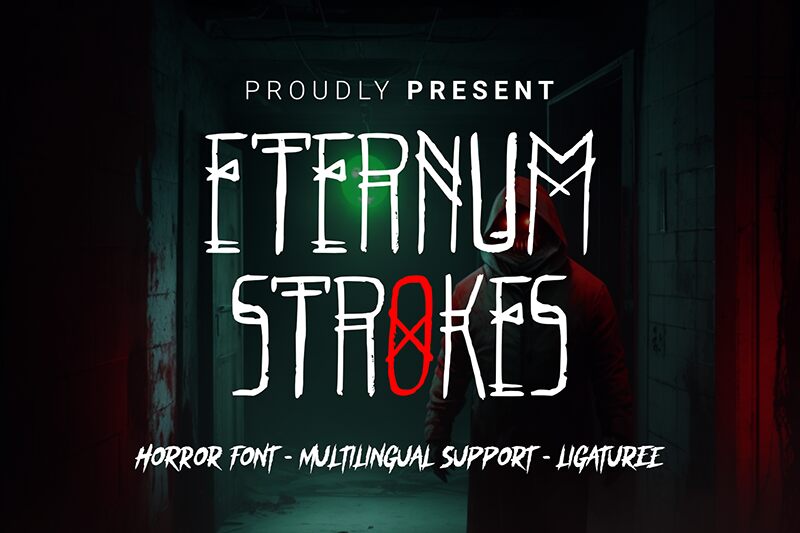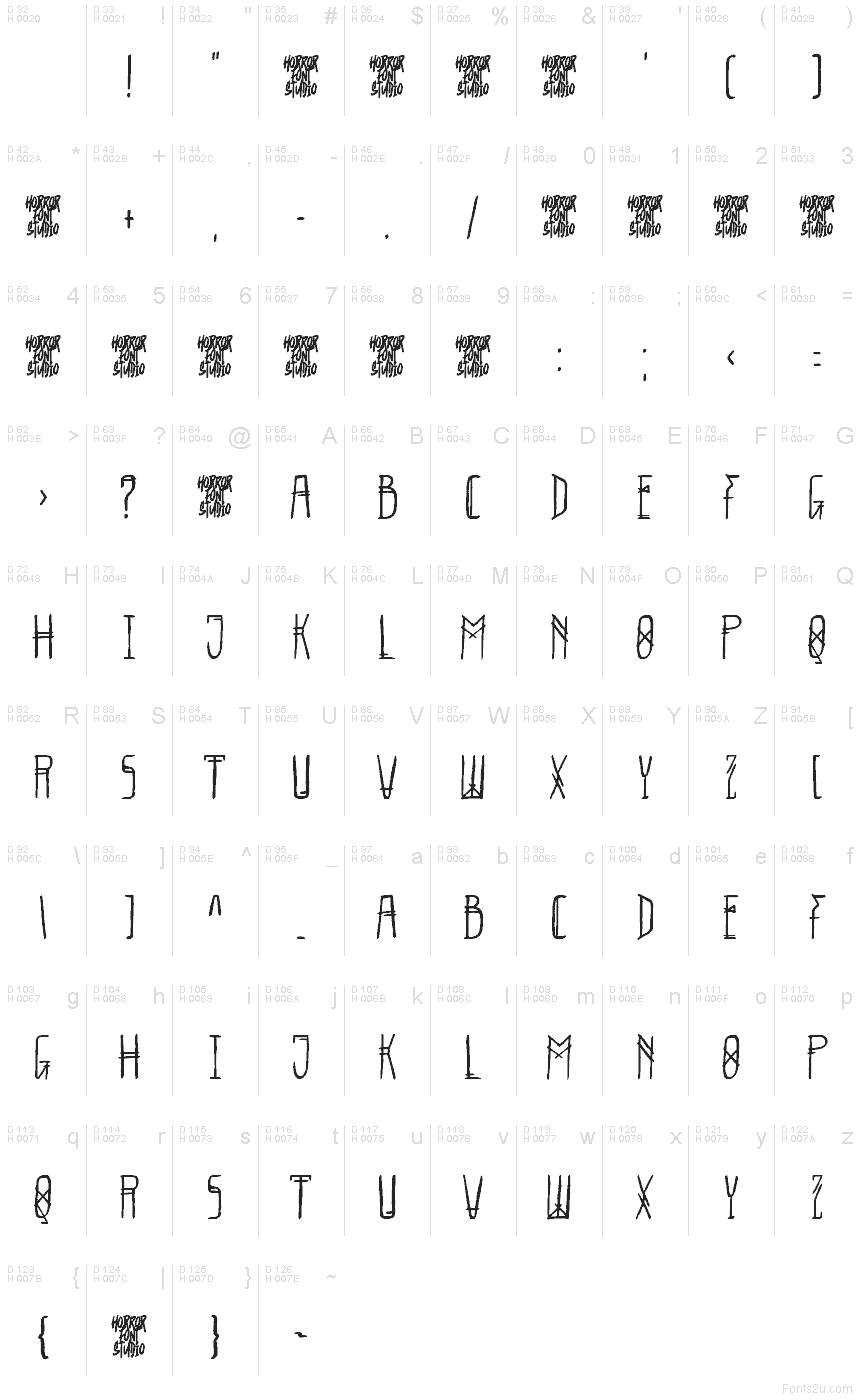
Eternum Strokes
Eternum Strokes font by Horror Font is a free scary display font built around spindly, rune-like letterforms. Bone-thin verticals end in sharp nicks and tied crossbars, as if scratched into wood with a ritual blade. The texture feels wiry and unstable, yet the tall rhythm keeps words readable at headline sizes, giving you menace without the mud.
Using Eternum Strokes, titles snap with occult energy—great for horror posters, haunted house flyers, occult book covers, metal album art, escape-room branding, and eerie game titles. This free font thrives big and tight; try generous tracking for extra chill. Pair with a plain condensed sans for body copy to keep the atmosphere crisp and legible.